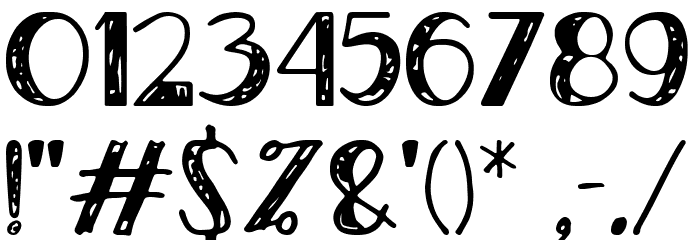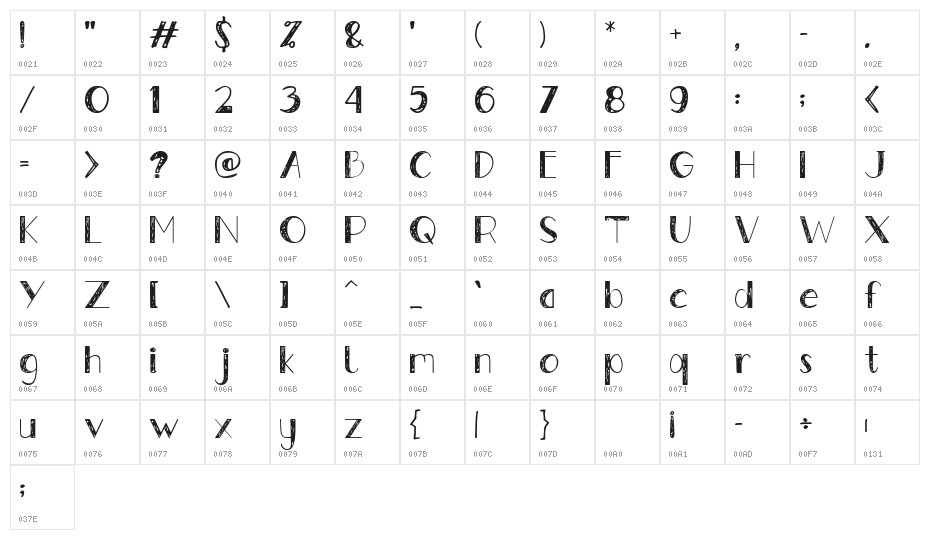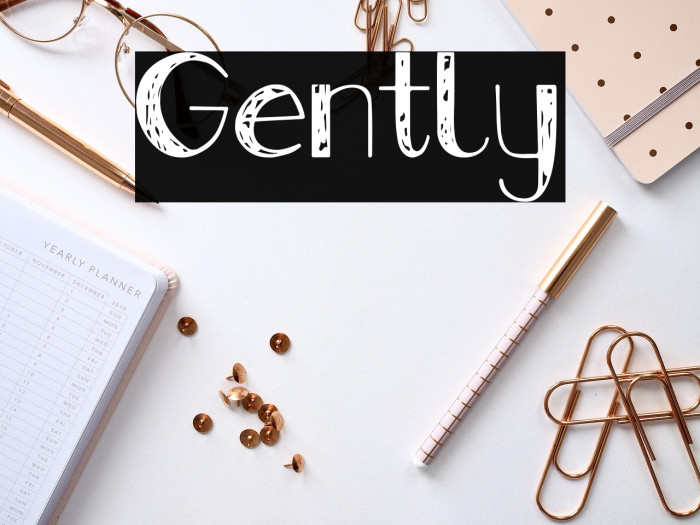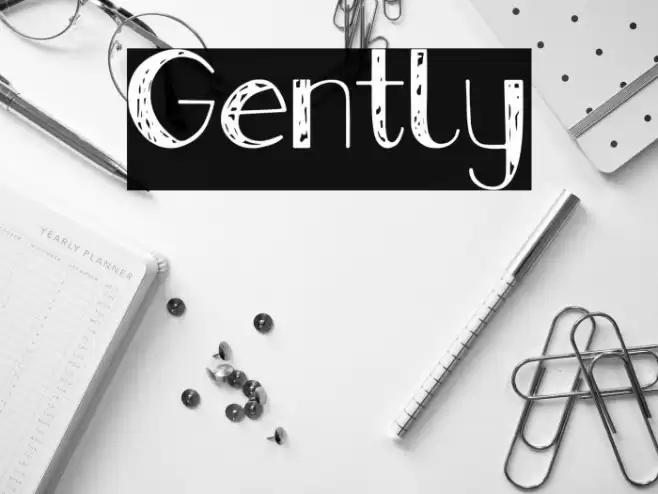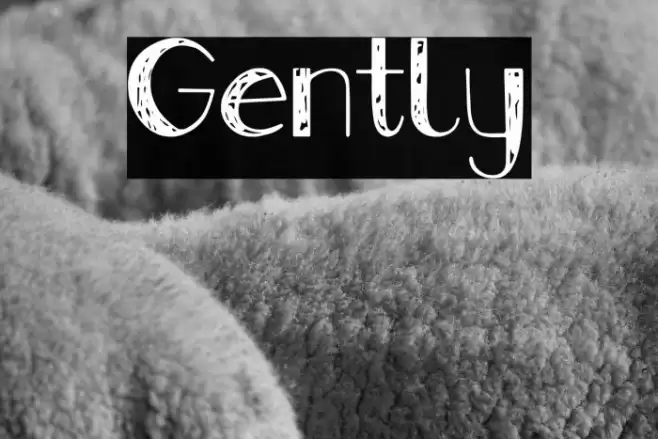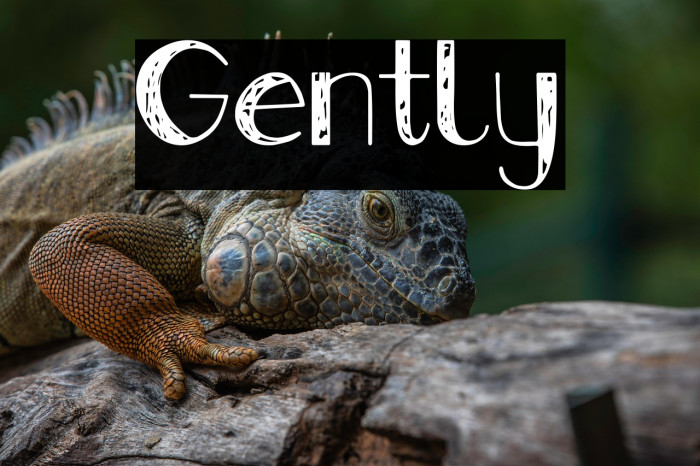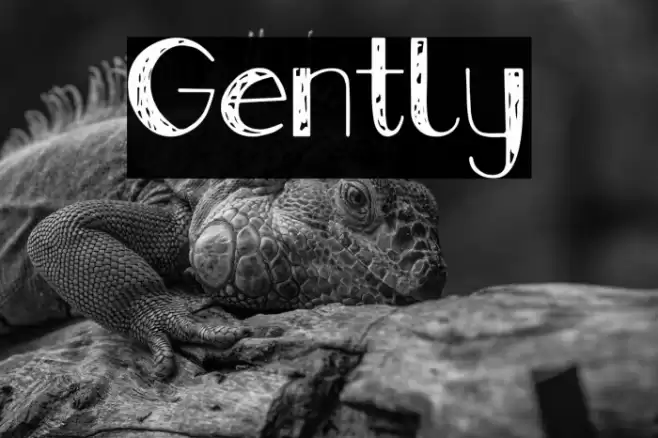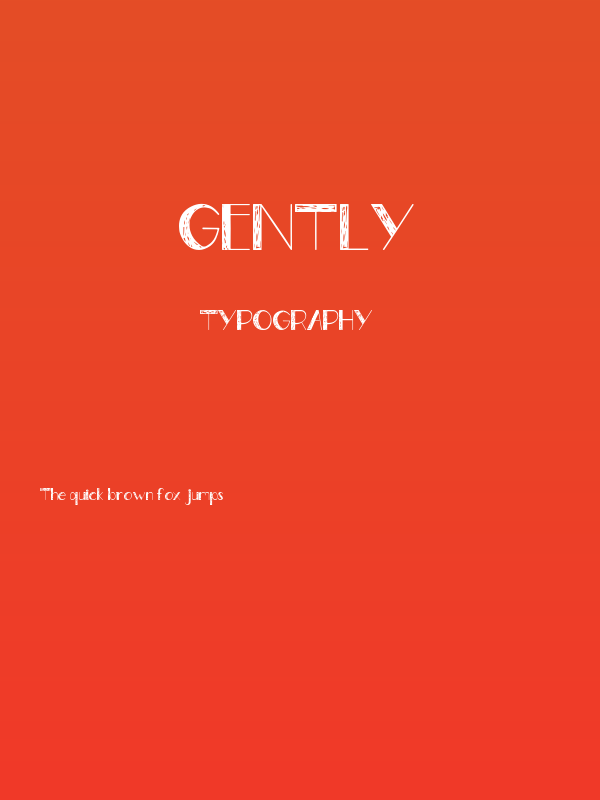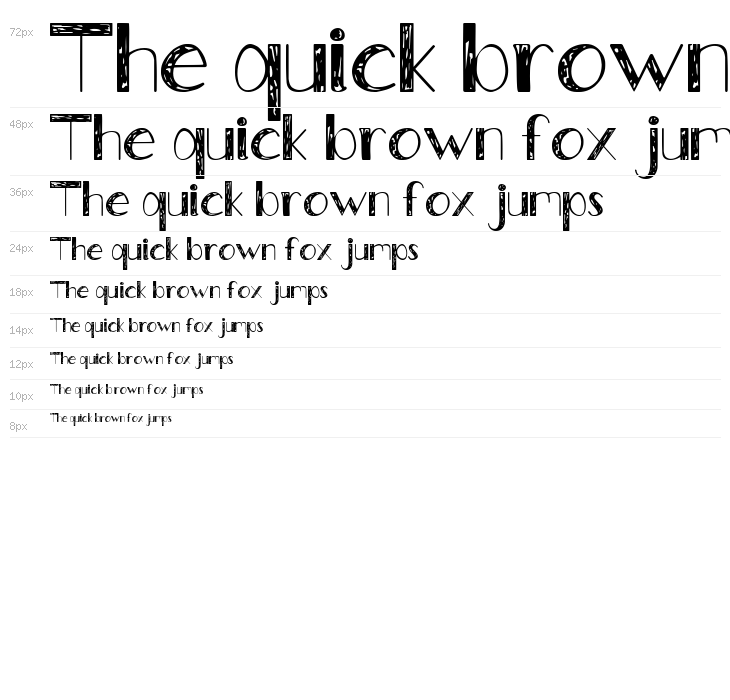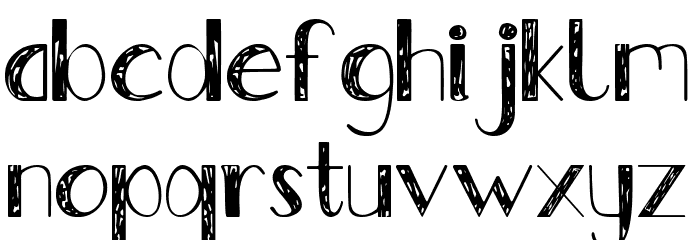
Gently Font
Gently Description
This font features a playful and artistic style, characterized by its hand-drawn appearance. Each letter is uniquely crafted with a textured, sketch-like quality, giving it a whimsical and creative feel. The uppercase letters are bold and prominent, while the lowercase letters maintain a consistent style with a slightly more delicate touch. Numbers and special characters follow the same artistic theme, ensuring a cohesive look across all elements. The font's irregular strokes and varying thicknesses add to its charm, making it ideal for projects that require a personal and artistic touch.
| Overall Style | Artistic, Whimsical |
| Proposed Projects | Ideal for children's book covers, creative posters, artistic branding, and playful invitations. |